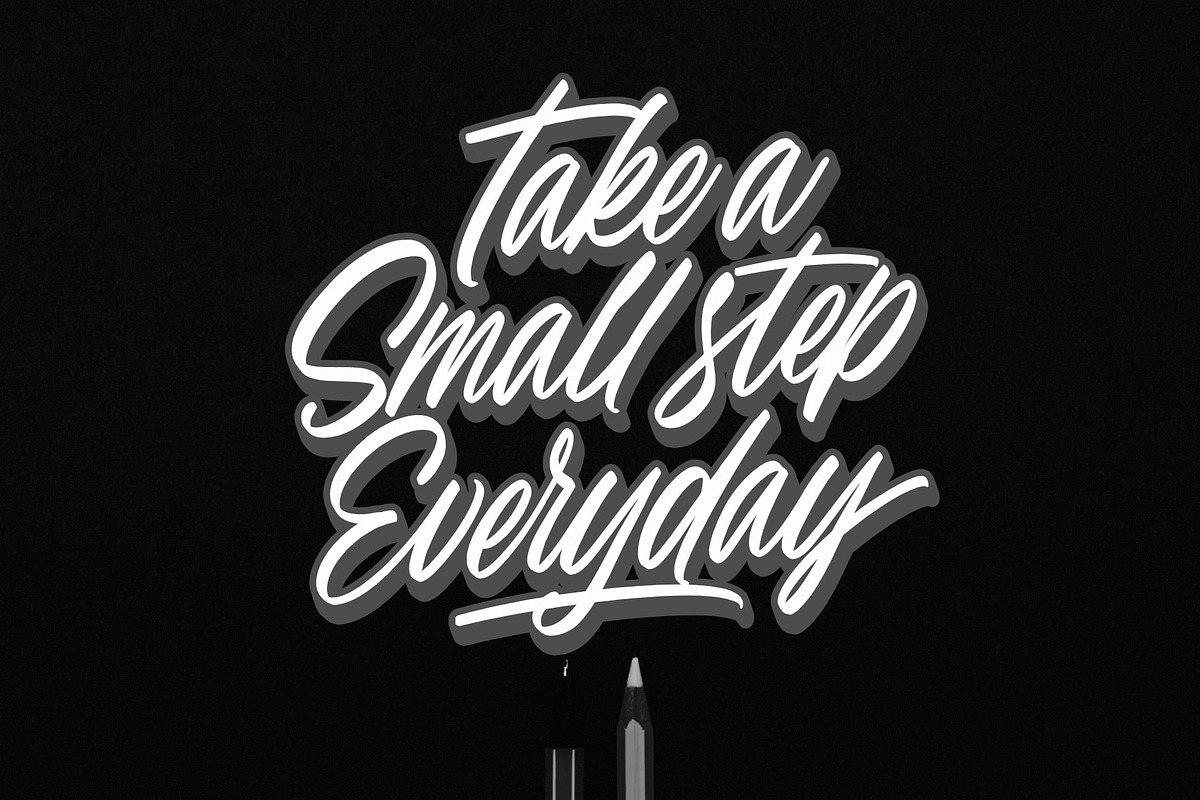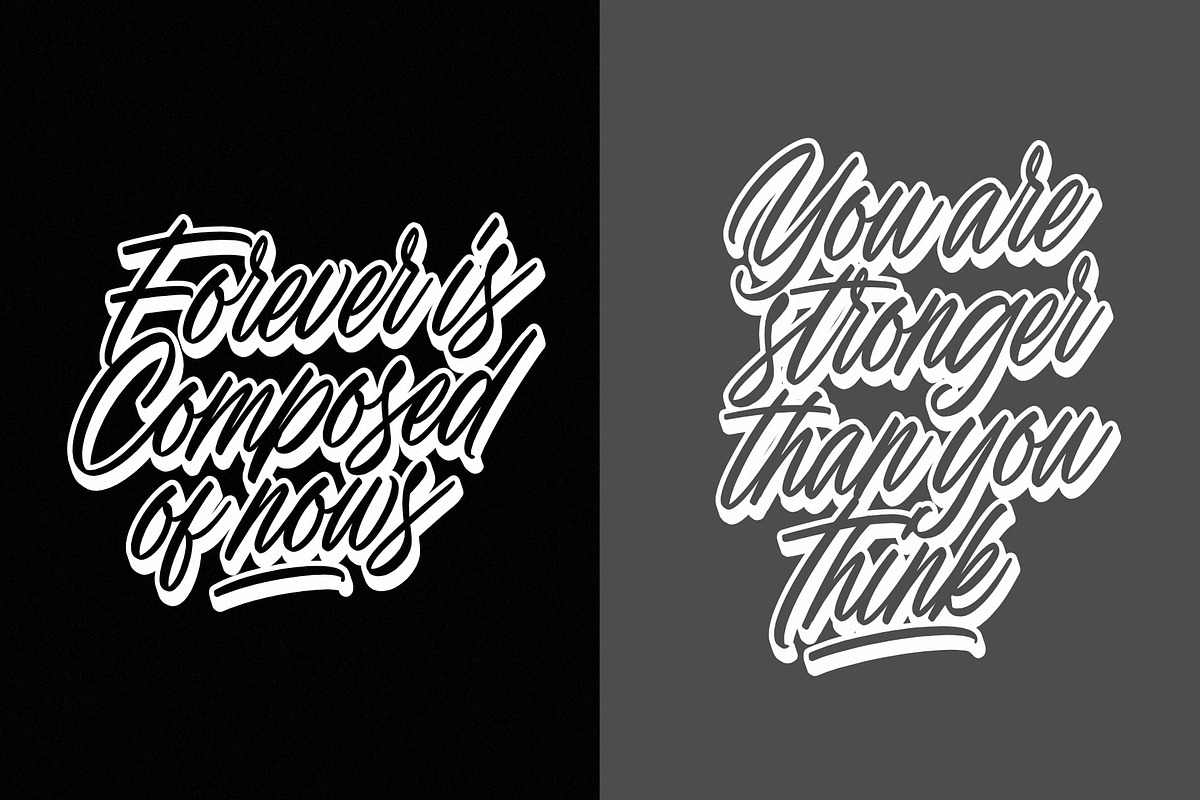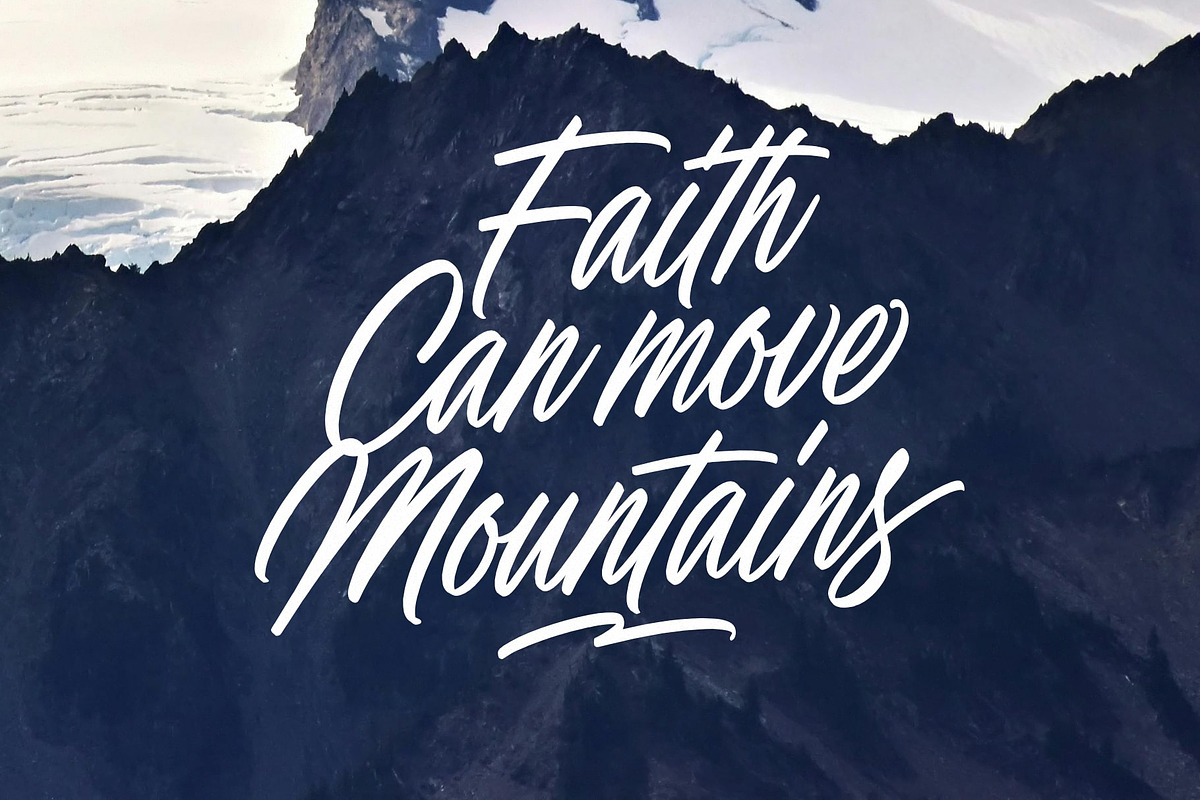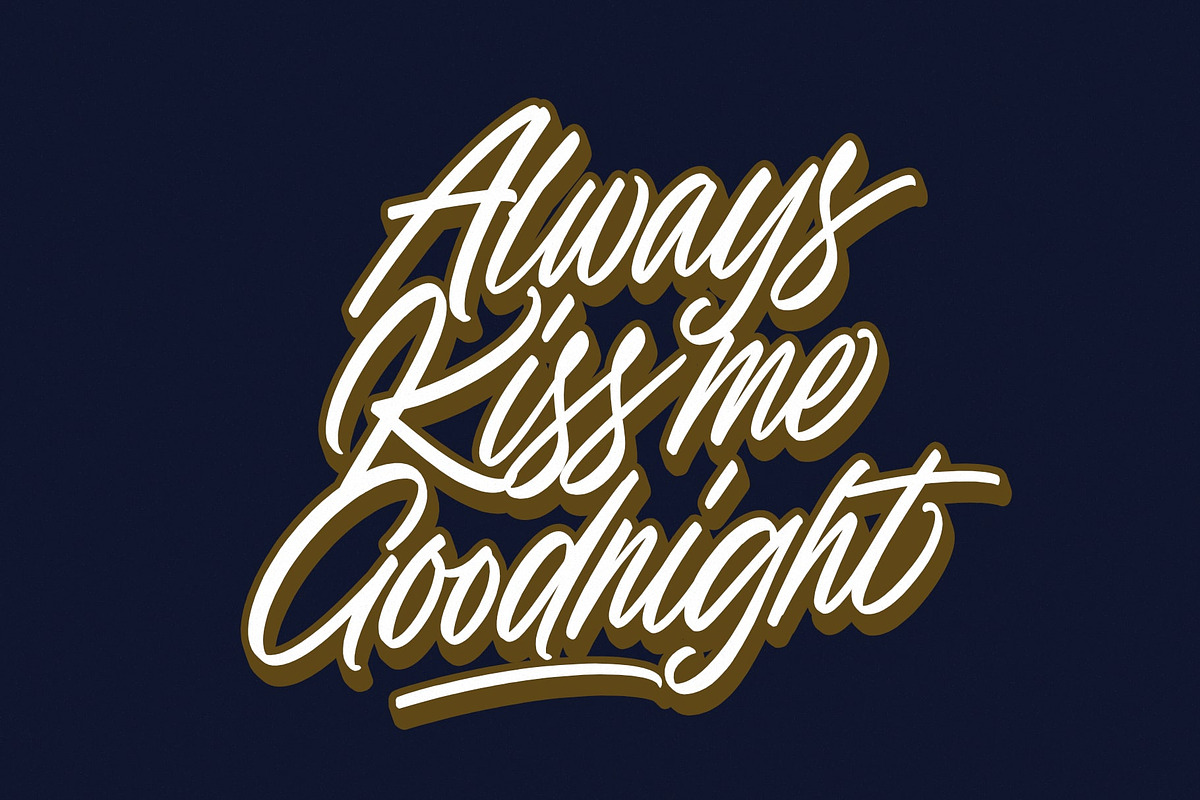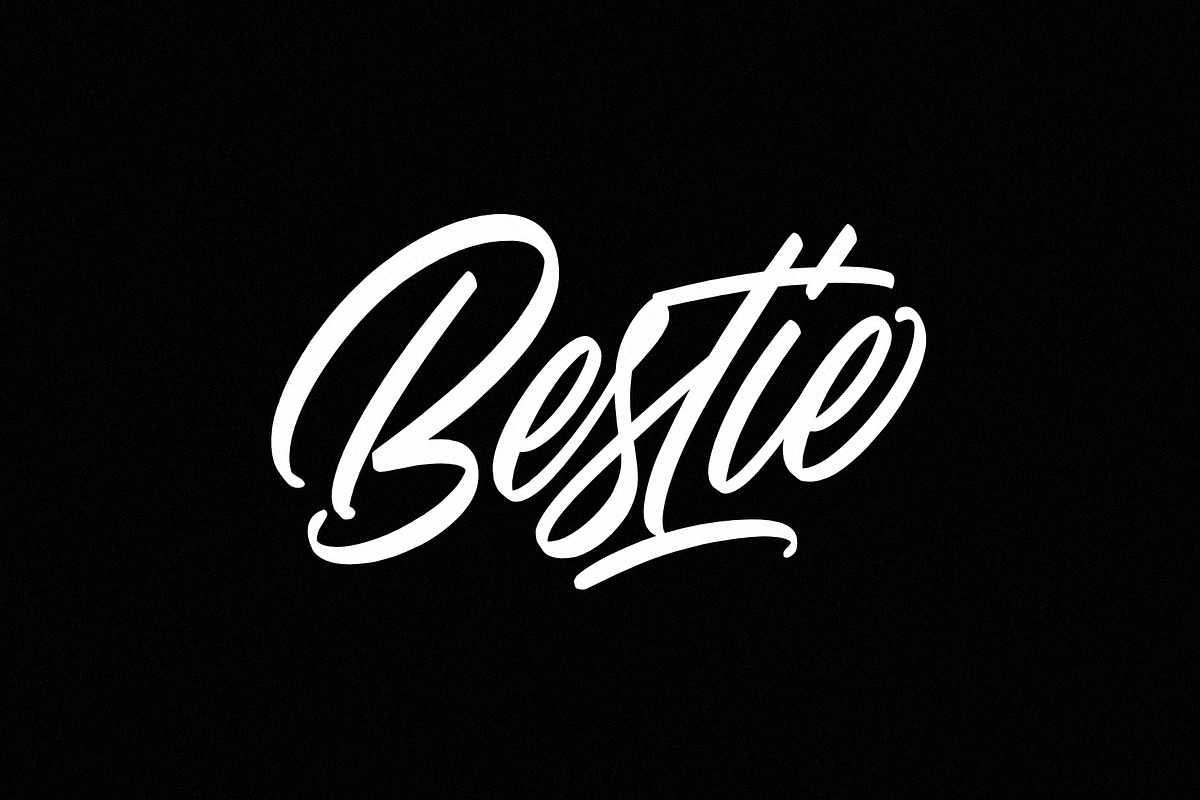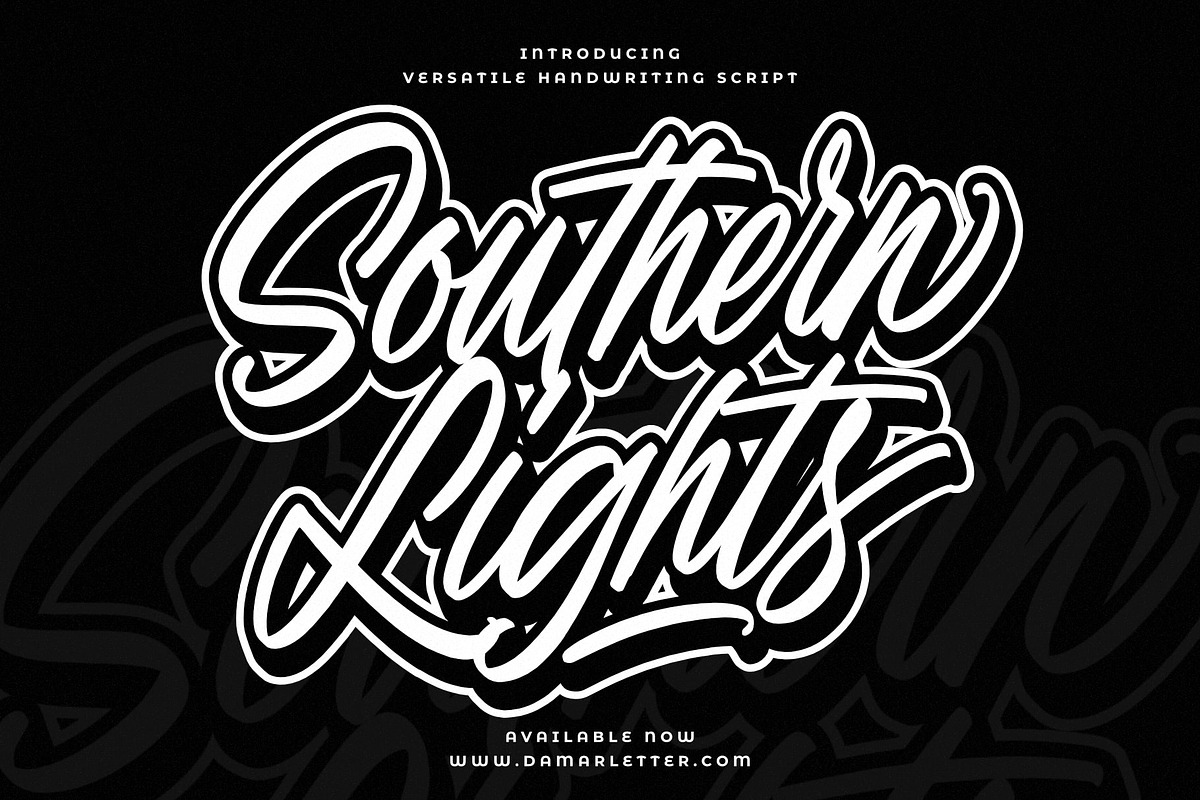
Southern Lights
Southern Lights is a versatile and elegant handwriting script typeface that exudes warmth, sophistication, and charm. With its smooth, flowing letterforms and delicate handcrafted style, this font captures the natural beauty of handwritten calligraphy while remaining polished and professional. Perfect for a variety of creative applications, Southern Lights shines in everything from branding and packaging to wedding stationery and social media designs.